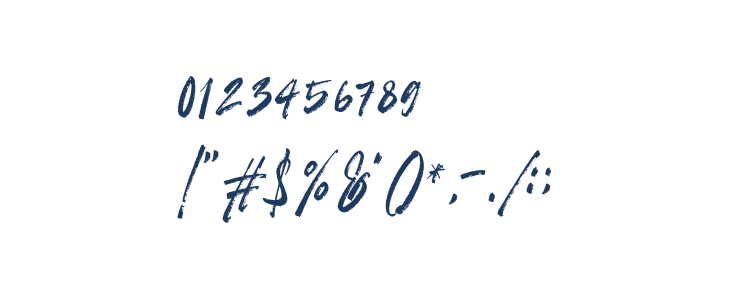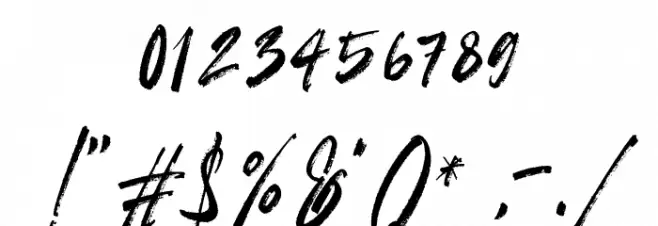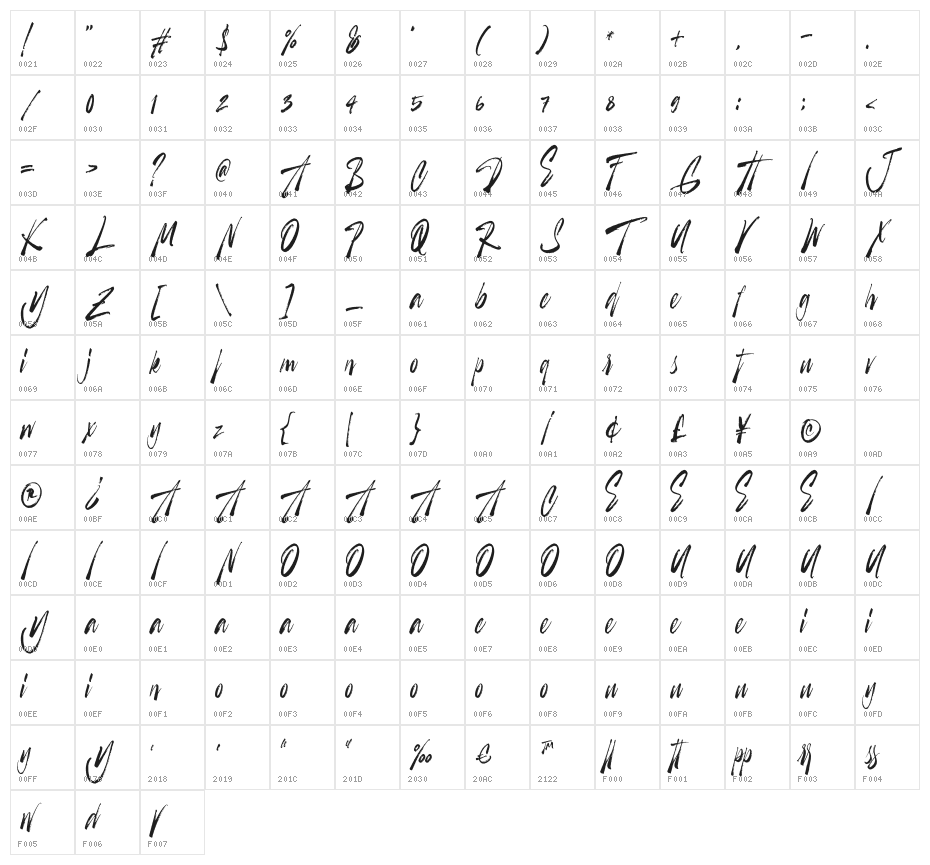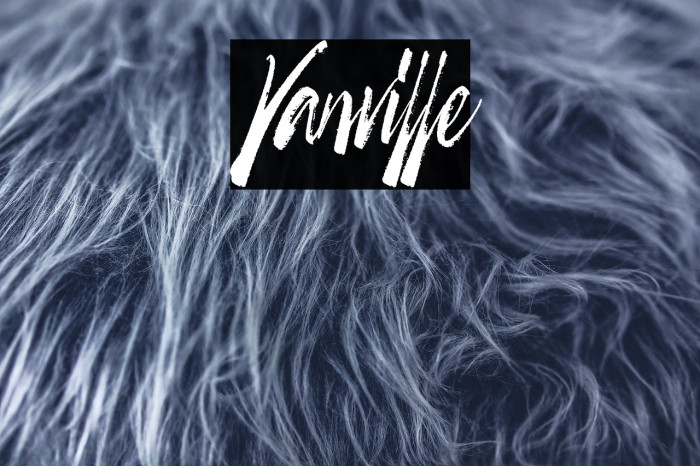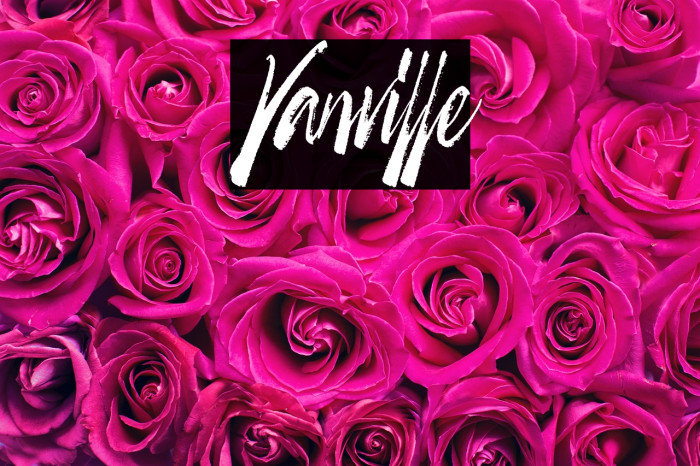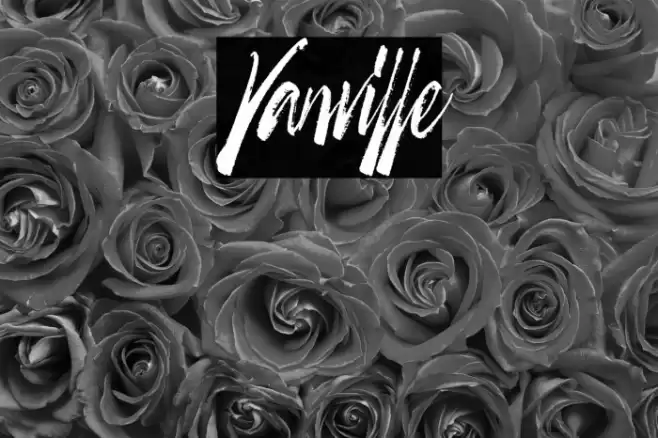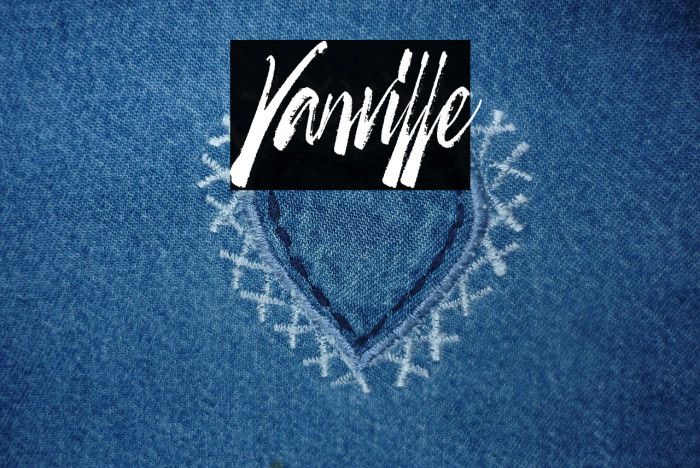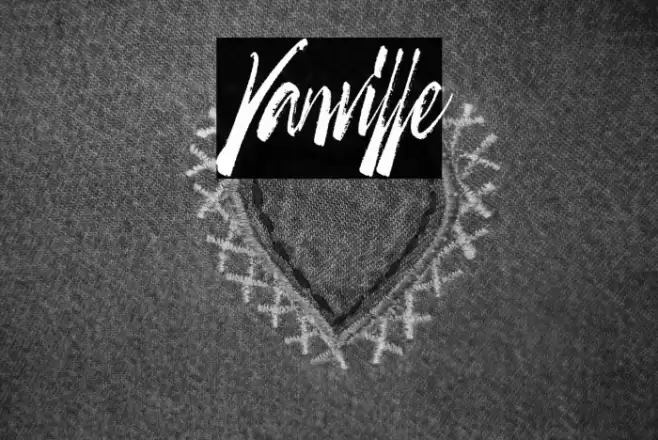
Vanville Font
Vanville Description
This font exudes a dynamic and expressive style, characterized by its bold, brush-like strokes that convey a sense of movement and energy. The uppercase letters are particularly striking, with their sweeping curves and varying line thicknesses, creating a sense of rhythm and spontaneity. The lowercase letters maintain this fluidity, offering a cohesive look that complements the uppercase set. Numbers and special characters are equally expressive, maintaining the same brush-like quality. This font is ideal for projects that require a personal, handcrafted touch, making it perfect for artistic and creative applications.
| Proposed Projects | Ideal for branding, posters, invitations, and artistic projects that require a personal touch. |